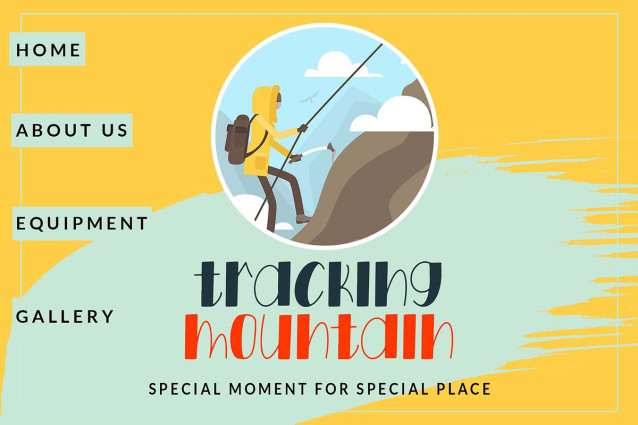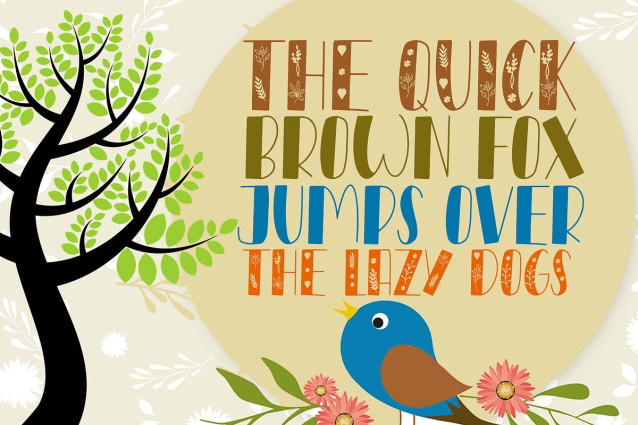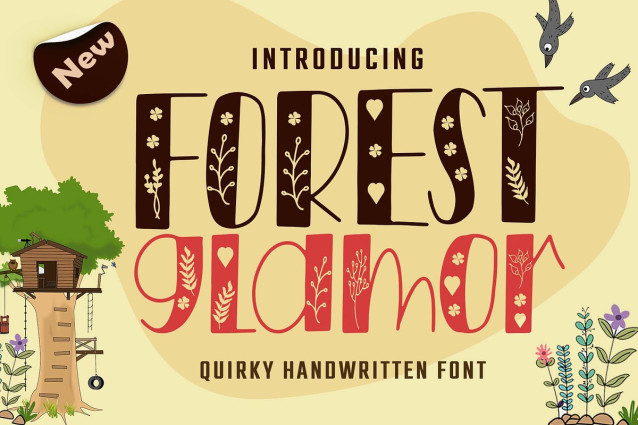
Forest Glamor Font
Forest Glamor Font is a quirky and incredibly unique display font. This enchanting font will turn any creative idea into a true standout. Forest Glamor is PUA encoded which means you can access all of the glyphs and swashes with ease!